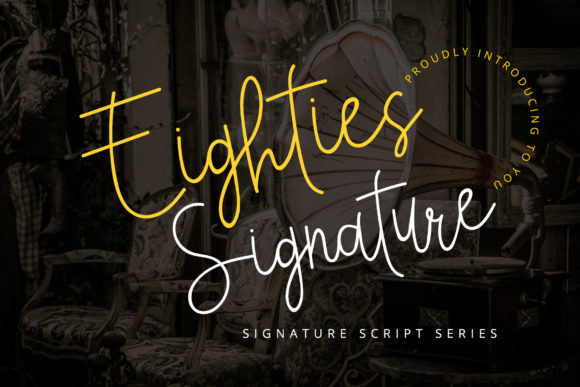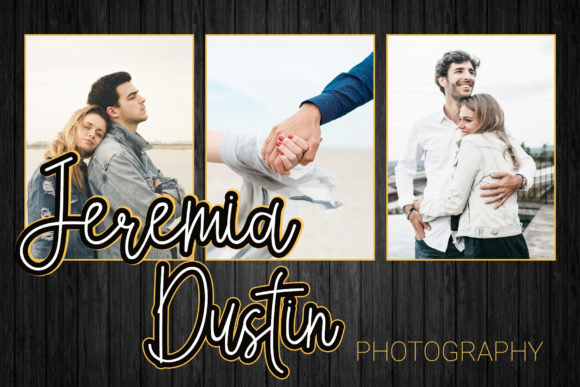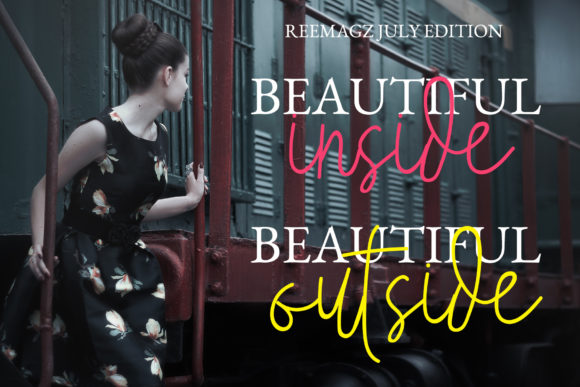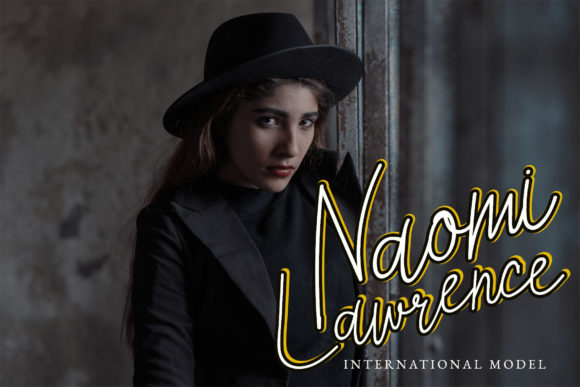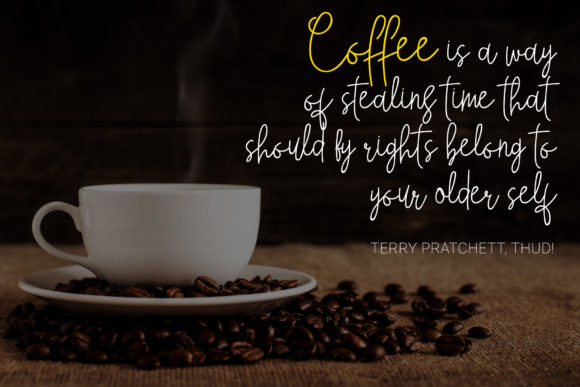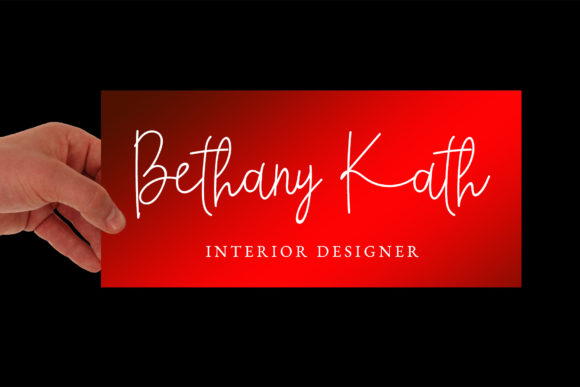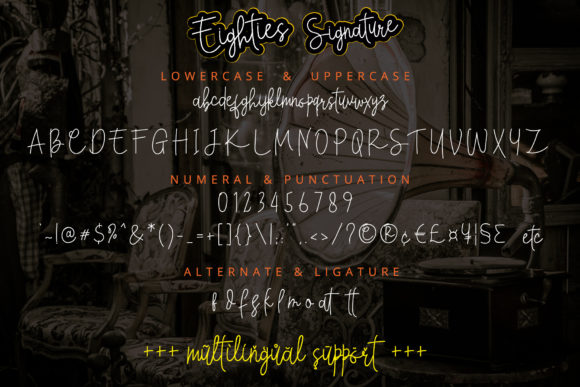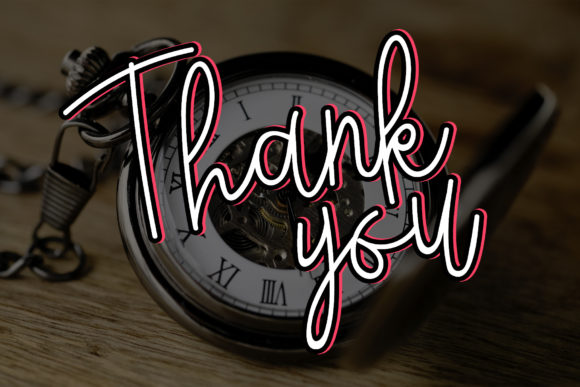
Eighties Signature Font
About Eighties Signature Font
Eighties Signature is a simple, yet authentic handwritten script that will take your design into the next level. Get inspired by its vintage charm!